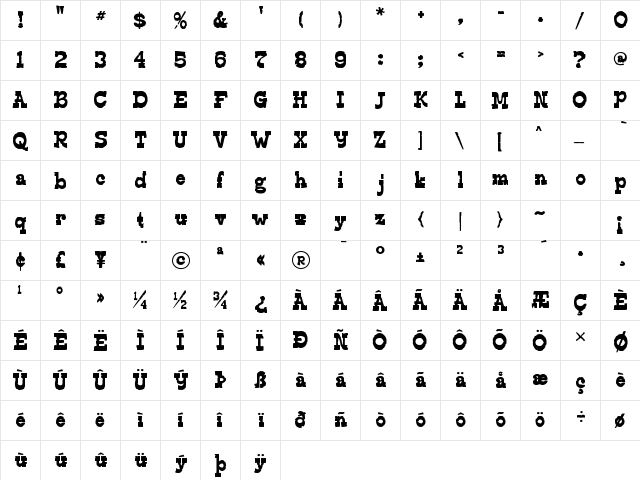
Edmunds Distressed
| Style | Distressed |
Design Context for Edmunds Typeface
Edmunds embraces imperfection — its rough, textured character adds raw authenticity to designs that want to feel lived-in and unconventional.
Suited to punk-influenced zines, underground music branding, streetwear, and raw, anti-corporate design.
Pro Tip: Pair Edmunds with intentionally raw or lo-fi design elements. Fighting against it with overly polished surroundings will undermine its personality.